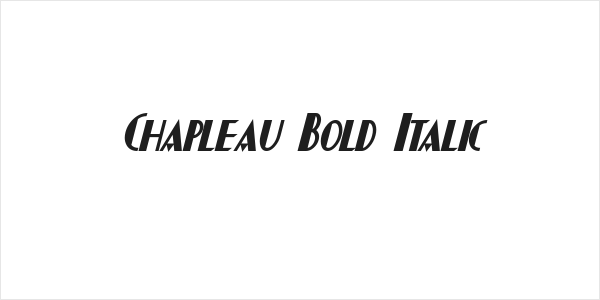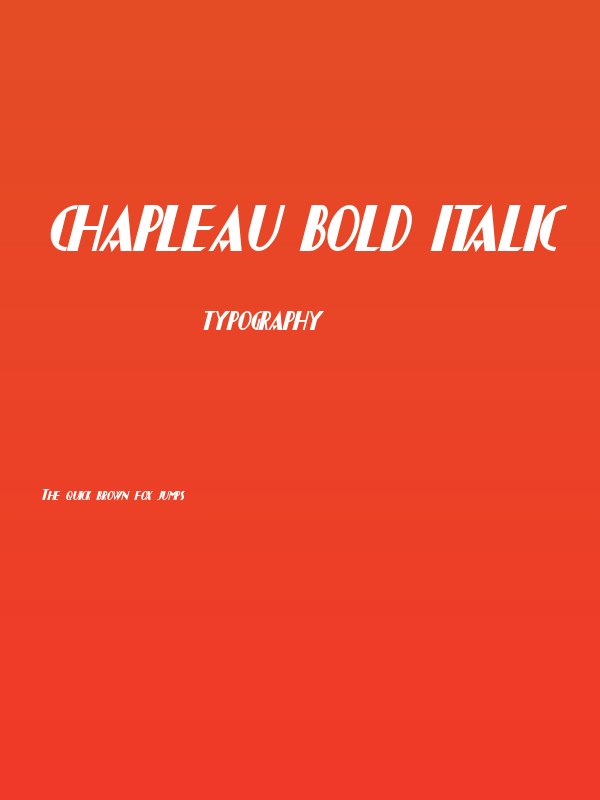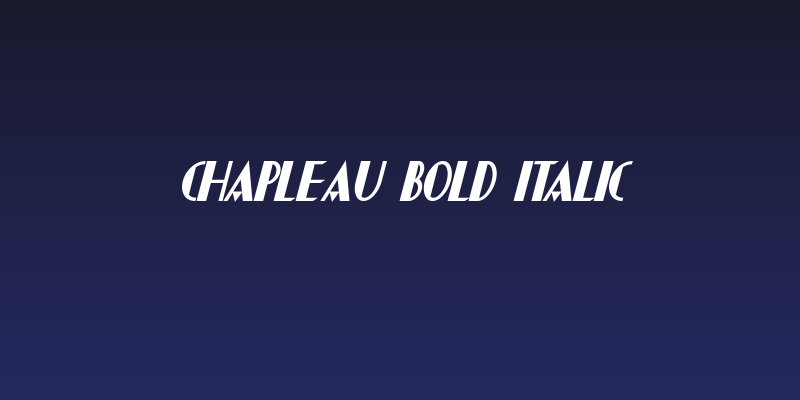
Chapleau Bold Italic Font
Chapleau Bold Italic Description
This font features a bold and italicized style with a distinct slant, giving it a dynamic and energetic appearance. The characters are wide with sharp angles and clean lines, creating a sense of movement and urgency. The uppercase letters are particularly striking, with a strong presence that commands attention. The lowercase letters maintain the same boldness, ensuring consistency across text. Numbers are equally bold and clear, making them stand out effectively. Special characters are designed with the same bold and italicized flair, ensuring they integrate seamlessly with the rest of the font. Overall, this font's unique style makes it ideal for projects that require a bold statement.
| Proposed Projects | Ideal for headlines, posters, branding, and any design needing a bold statement. |